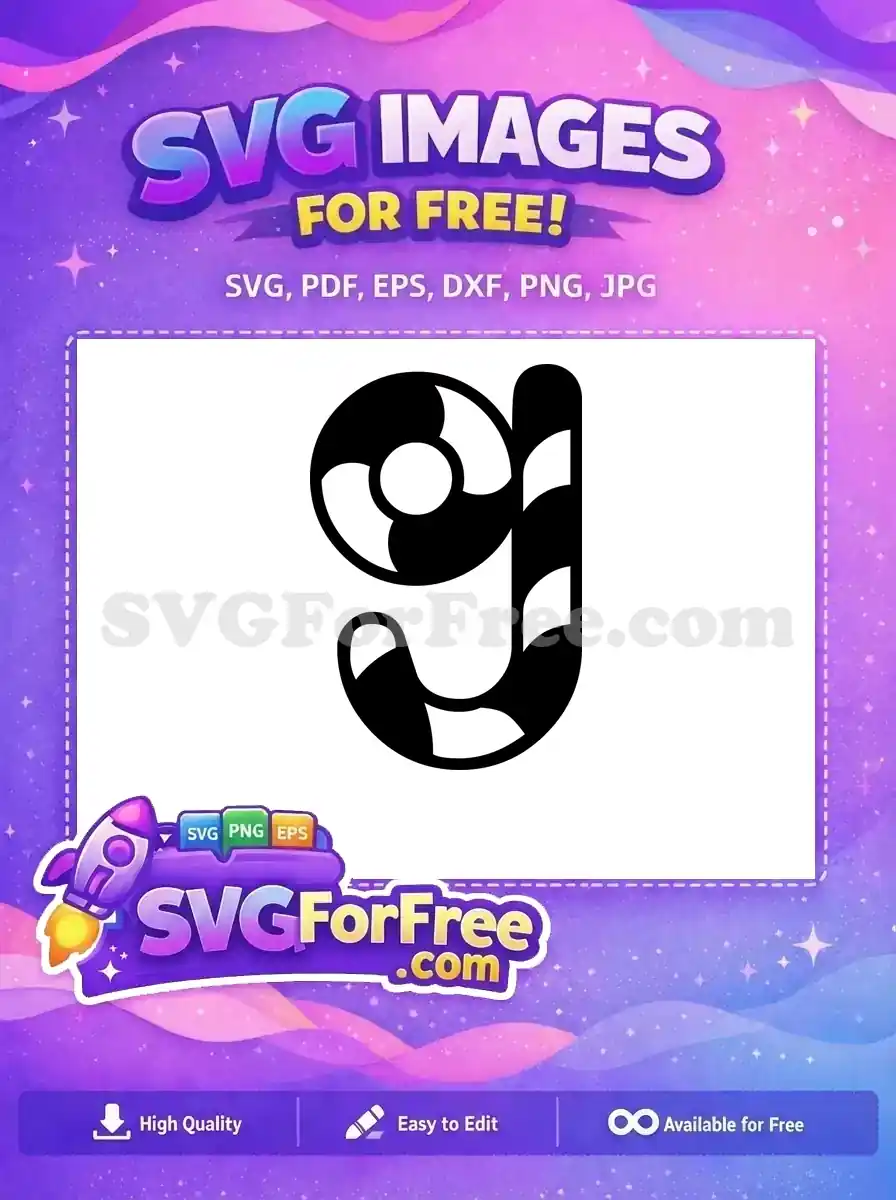
Free Striped Font Free Letter G Fonts Free SVG – Instant Download
Striped lowercase g with a curly tail, a free vector for whimsical or holiday text.
Free Striped Font Free Letter G Fonts Free SVG